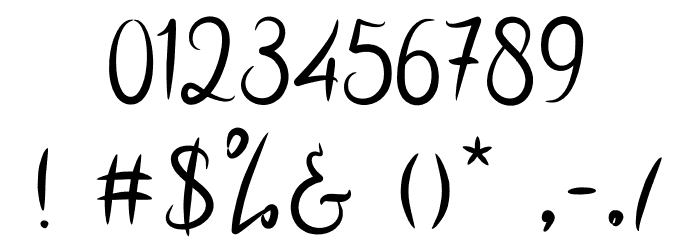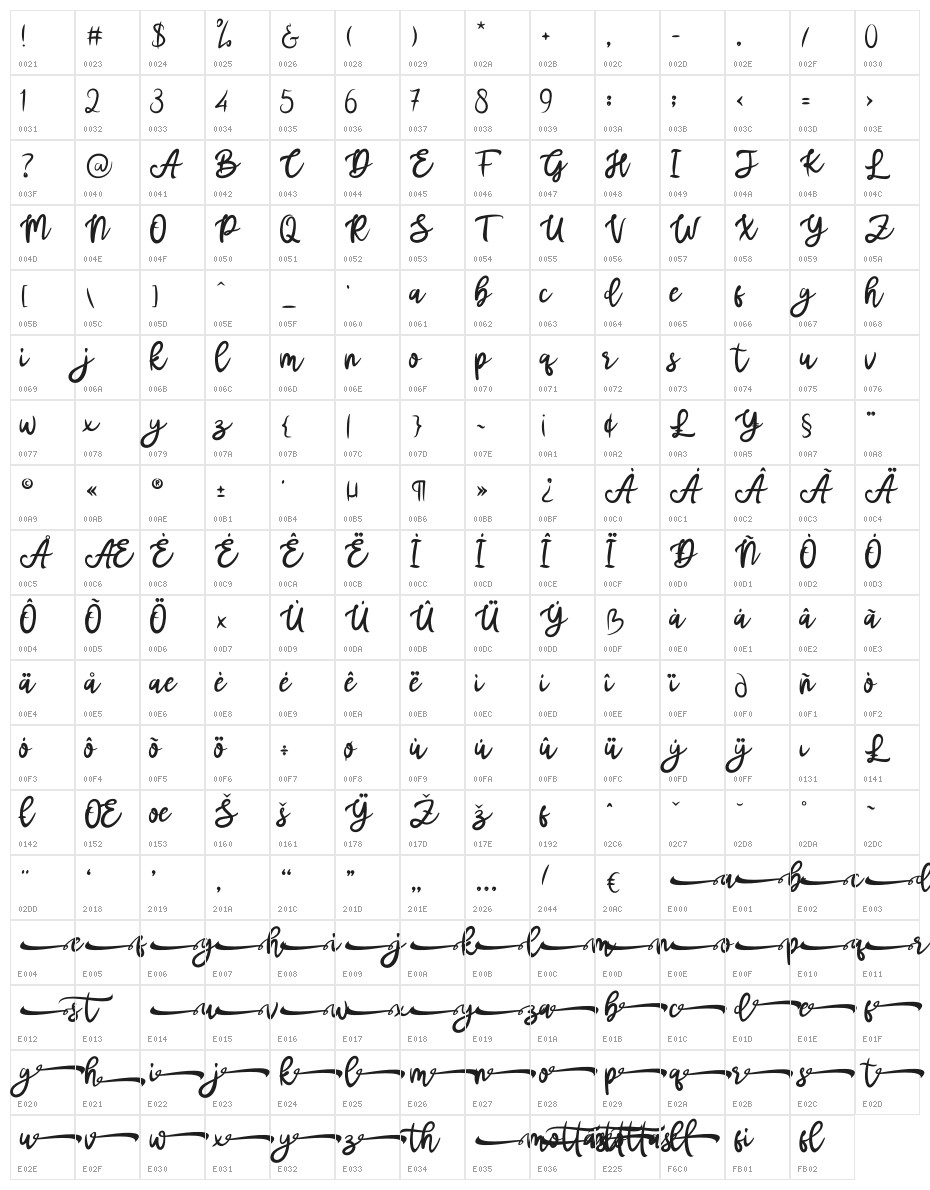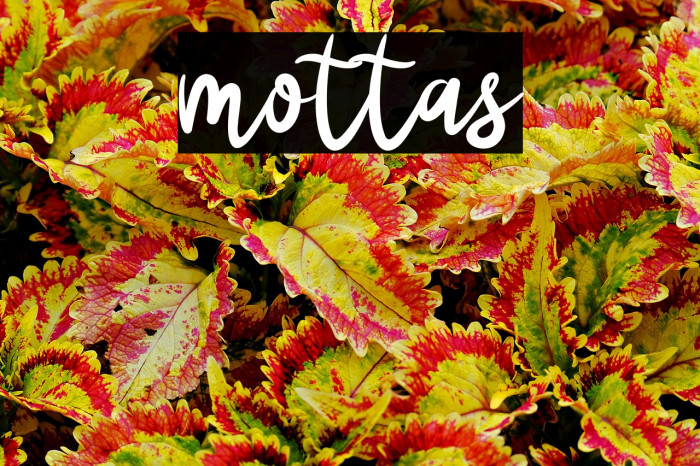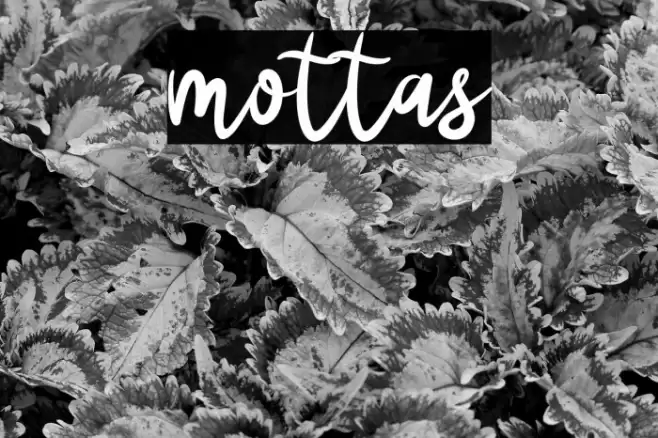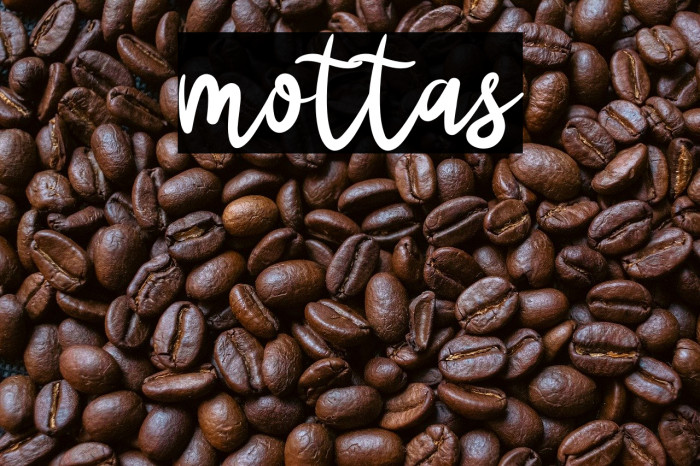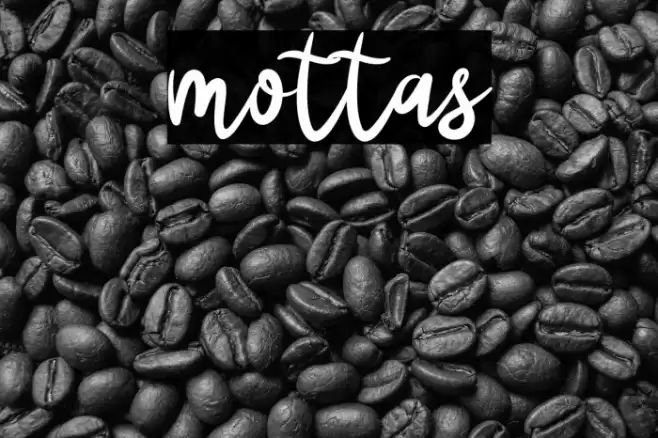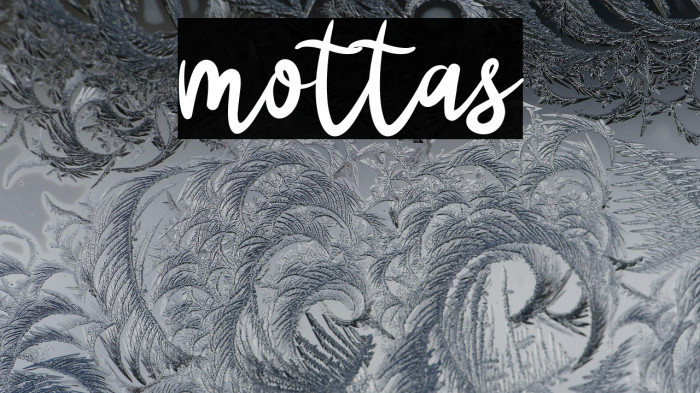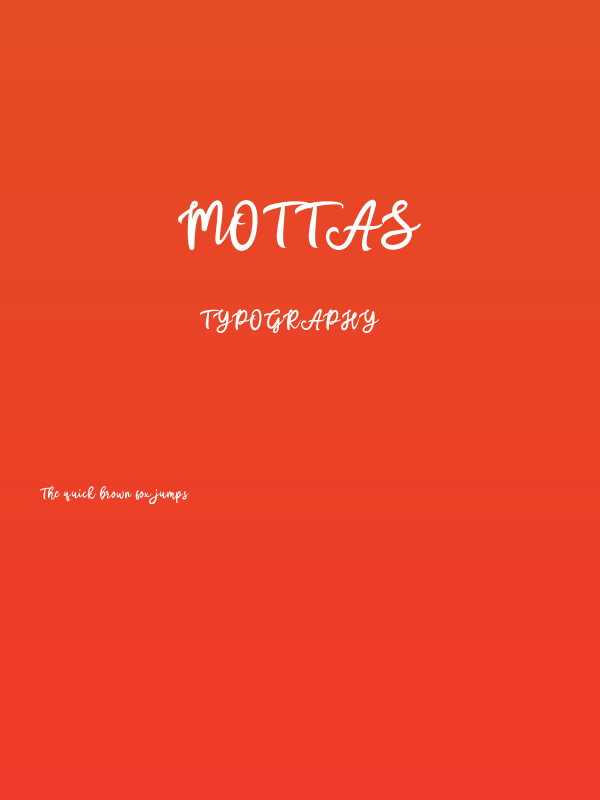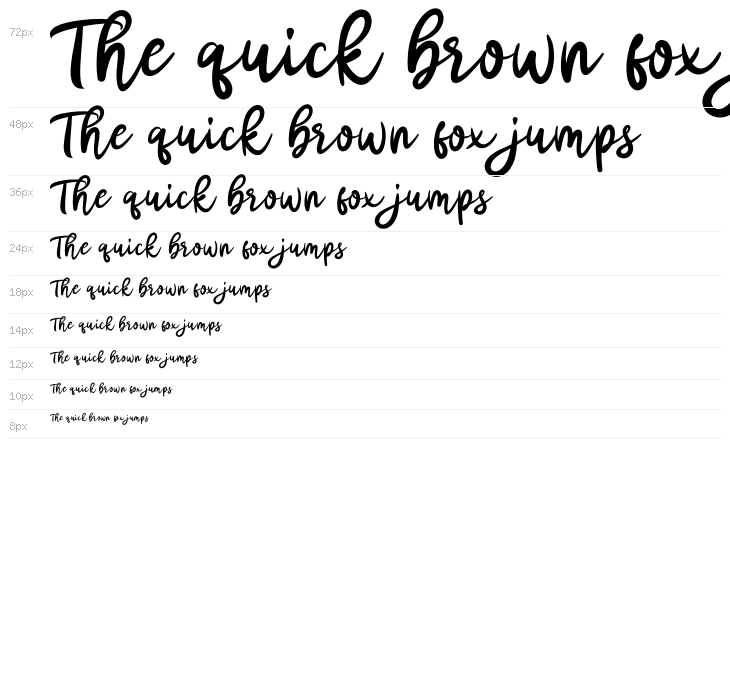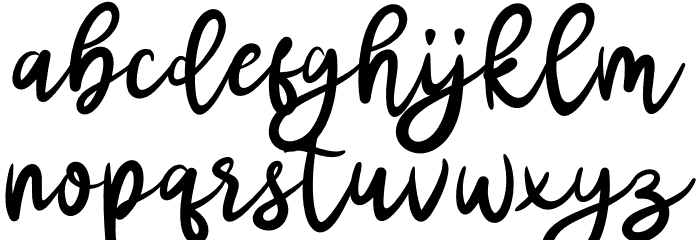
mottas Font
mottas Description
This font features a lively and expressive script style, characterized by its fluid and connected letterforms. The uppercase letters exhibit a graceful flow with moderate loops and swashes, while the lowercase letters maintain a consistent rhythm and elegance. The numerals are bold and clear, ensuring readability. Special characters are integrated seamlessly, adding to the font's versatility. The overall design exudes a sense of creativity and personal touch, making it suitable for projects that require a handwritten or artistic flair.
| Proposed Projects | Ideal for wedding invitations, greeting cards, branding, and creative projects that require a personal touch. |